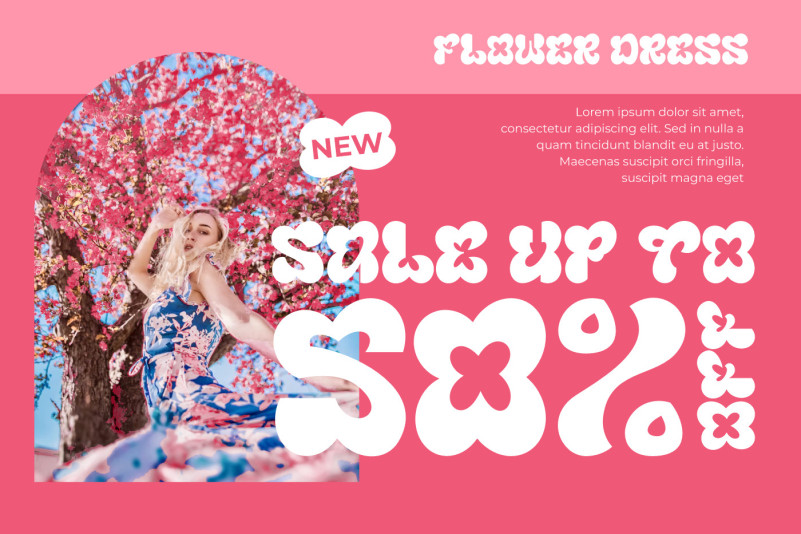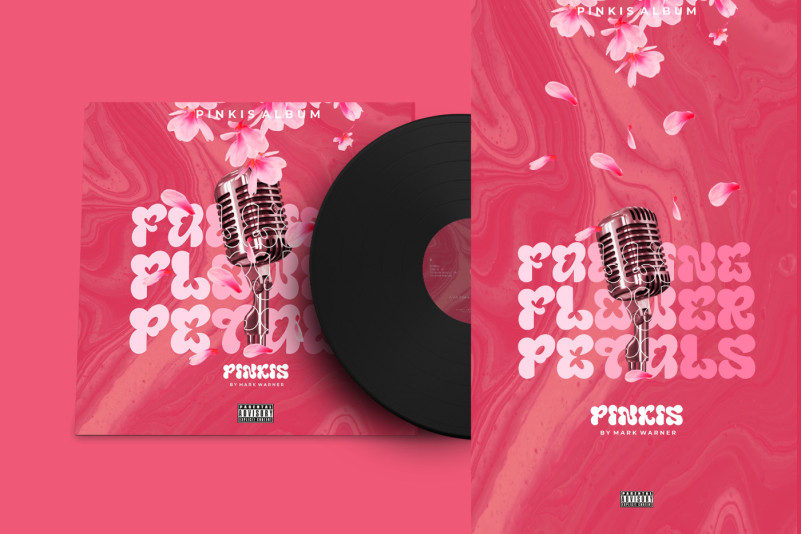
Blumebungabloem Display Font is a bold display font that has a flower-like shape. Font with All Caps, all letters and numbers formed from flower shapes. Bold display font that looks like flower petals.